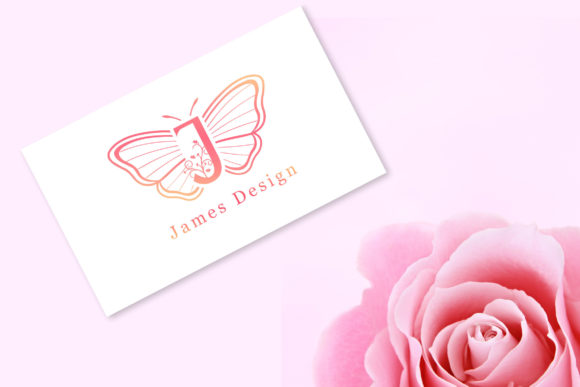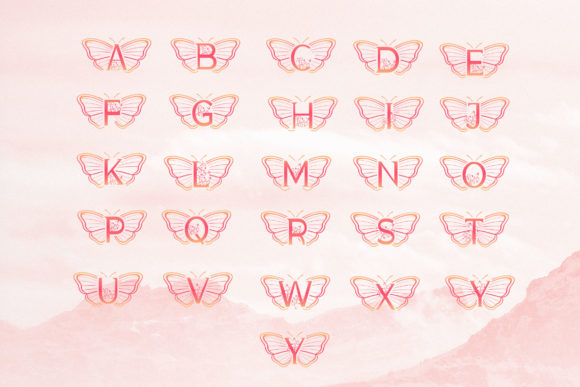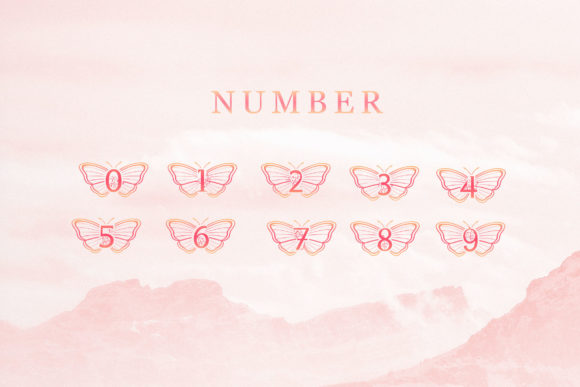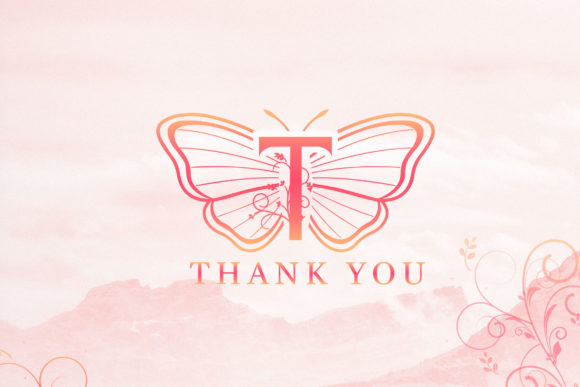
Introducing the Delicate Charm of Butterfly Monogram Font
Are you on the lookout for a font that exudes elegance, sophistication, and a touch of whimsy? Look no further than the Butterfly Monogram Font. This delicate and beautiful decorative font is sure to capture your heart with its incredibly versatile style, making it perfect for a wide range of creative projects.
A Font that Spreads its Wings
The Butterfly Monogram Font is a masterful creation that combines the intricate details of monogram design with the free-spirited nature of butterflies. The result is a font that is both ornate and airy, capable of adding a touch of magic to any design. Whether you’re working on wedding invitations, stationery art, social media posts, or any other project, this font is sure to make it stand out.
One of the most significant advantages of the Butterfly Monogram Font is its versatility. Its delicate and intricate design makes it perfect for:
- Wedding Invitations: Create stunning wedding invitations that set the tone for a beautiful and memorable day.
- Stationery Art: Add a touch of elegance to your stationery art, making it perfect for special occasions or everyday use.
- Social Media Posts: Make your social media posts stand out with the Butterfly Monogram Font, adding a touch of whimsy and sophistication.
- Crafting Projects: Use the font to create beautiful and unique crafting projects, such as handmade cards, gift tags, and more.
Key Features of the Butterfly Monogram Font
The Butterfly Monogram Font comes with a range of features that make it a must-have for designers and crafters:
- Delicate and Intricate Design: The font features intricate details and a delicate design that adds a touch of elegance to any project.
- Versatile Style: The font’s versatile style makes it perfect for a wide range of creative projects, from wedding invitations to social media posts.
| Font Name | Butterfly Monogram Font |
| Author | handles creative |
The Butterfly Monogram Font is a beautiful and versatile decorative font that is sure to capture your heart. With its delicate and intricate design, it’s perfect for a wide range of creative projects, from wedding invitations to social media posts. Whether you’re a designer or crafter, this font is sure to become a staple in your collection.